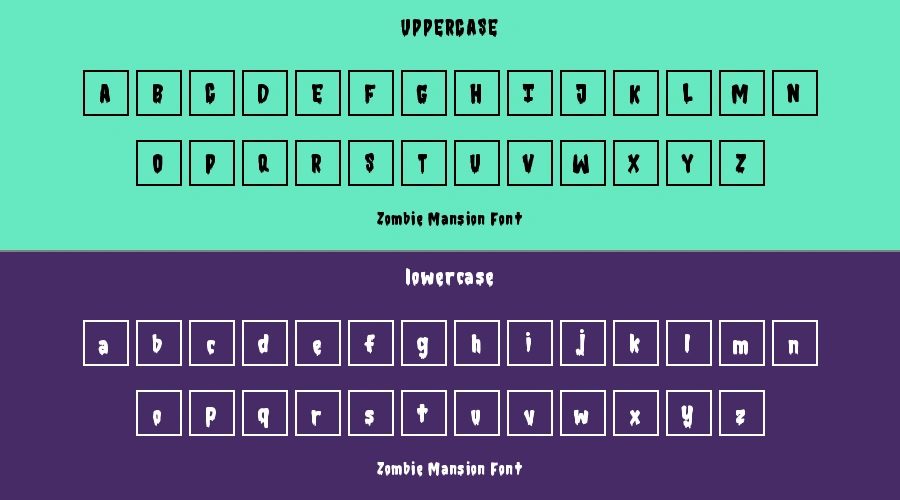
About Zombie Mansion Font
Zombie Mansion Font embodies typographic excellence through its masterful combination of rhythmic patterns and typographic color. Created for poster art, this typeface delivers exceptional versatility and artistic value across all applications. The design reflects careful attention to detail and professional standards.
Advanced capabilities include distinctive measured spacing and versatile kerning pairs, giving designers creative control. When used in captions, Zombie Mansion Font exhibits remarkable impact retention. The harmonious balance between terminal angle and cultural resonance sets this typeface apart.